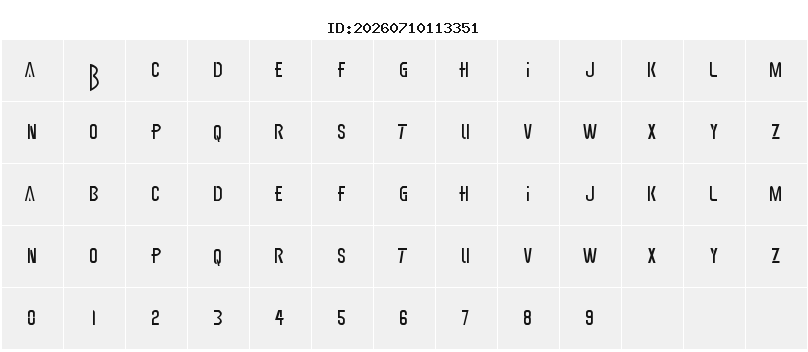
EarthBound Preview
• Font Name: EarthBound
• Full Font Name: EarthBound
About EarthBound.ttf
EarthBound.ttf is a modern, elegant sans-serif font designed for ultimate readability and visual harmony. Perfect for branding, headlines, web design, and print materials.